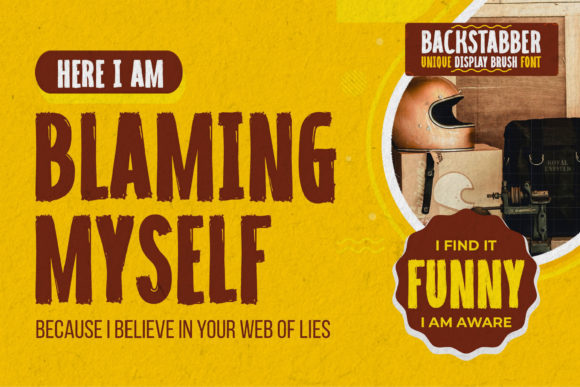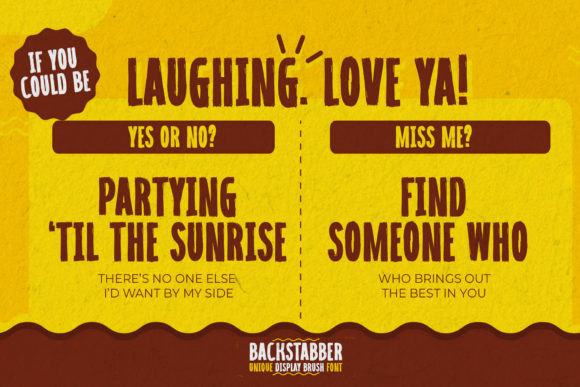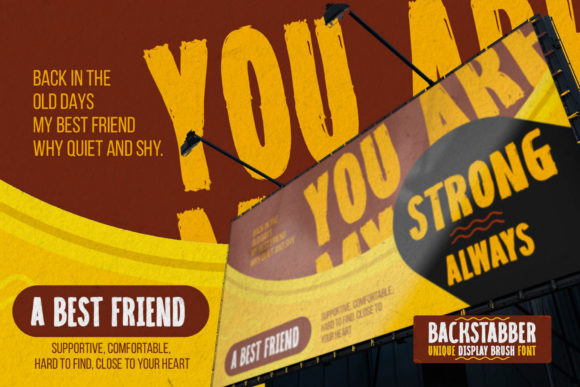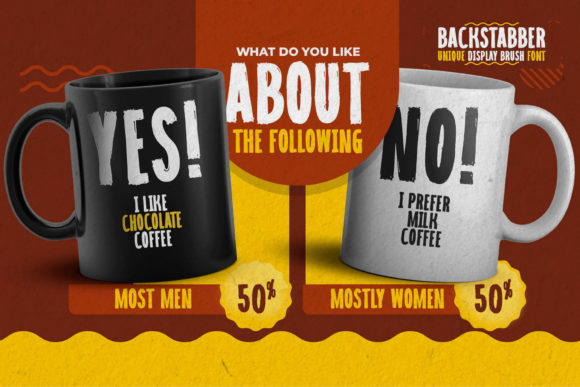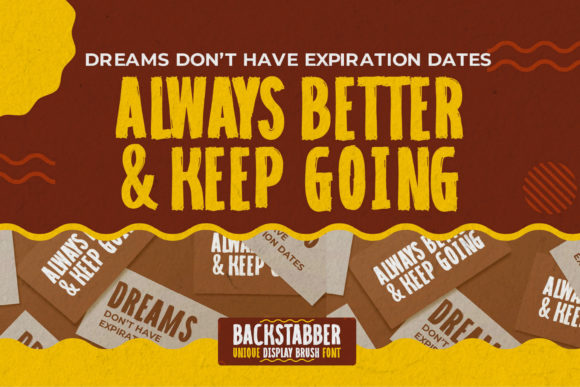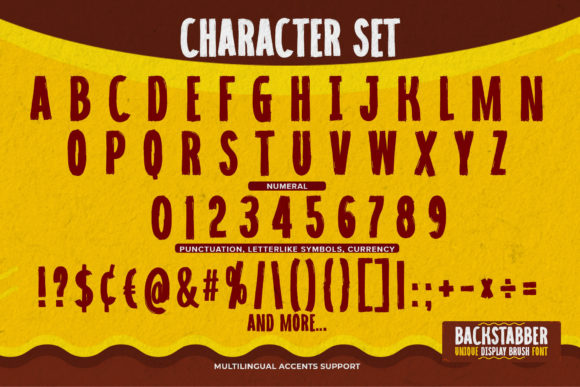
Have you ever been stuck in the middle of a project, staring at a blank screen, and wondering how to bring your idea to life? We’ve all been there. That’s why I’m excited to introduce you to the Backstabber Font, a game-changing tool that’s about to revolutionize the way you design.
This cool, paint-brushed, and thick-lettered display font is perfect for crafting, digital designing, presentations, or even greeting cards making. Its unique style adds a touch of personality to any project, making it stand out from the crowd. As a designer, you know how valuable a versatile font can be. The Backstabber Font is a valuable addition to any design toolkit, offering endless possibilities for creative expression.
Key Features of Backstabber Font
- Font Family: Backstabber Font is a unique and stylized sans-serif font, available in multiple font formats including OTF, TTF, WOFF, and EOT.
- Unique Characteristics: The font features a distinctive, hand-drawn feel with bold lines and geometric shapes, giving it a modern and edgy look.
- Font Styles: Backstabber Font is available in multiple font styles, including regular, bold, italic, and bold italic, allowing designers to create a wide range of visual effects.
Review of “Backstabber Font”
Overall, I was intrigued by the edgy and rebellious vibe of the “Backstabber Font”. It’s a unique and bold choice for those who want to make a statement.
- Eye-catching and bold font style that’s sure to grab attention.
- Great for creating a rebellious or edgy brand identity.
- The font is highly legible, even at smaller sizes.
- Supports a wide range of languages, making it a versatile choice.
- Limited flexibility in terms of customization options.
- The font may be too bold or overwhelming for some designs.
- Not ideal for projects that require a more professional or formal tone.
In conclusion, the “Backstabber Font” is a bold and eye-catching choice for those who want to make a statement. While it has its limitations, it’s a great option for designers who want to create a rebellious or edgy brand identity. However, it may not be the best choice for more formal or professional projects.
Use the Backstabber font for titles, headings, and emphasis. Combine it with other fonts to create a unique and eye-catching design. Experiment with different font sizes and colors to create contrast and visual interest.
The Backstabber font is commonly used for:
- Rock music posters and flyers
- Edgy fashion branding
- Dark and moody typography